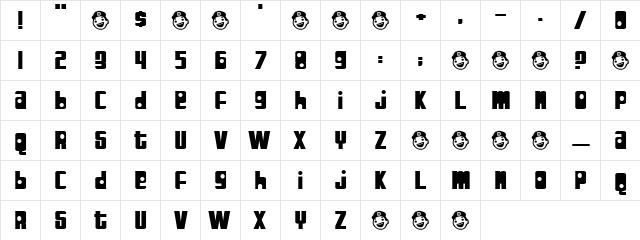
Pulp Regular
Design Context for Pulp Typeface
Pulp is a composed and adaptable typeface that performs quietly and consistently across a wide range of design contexts.